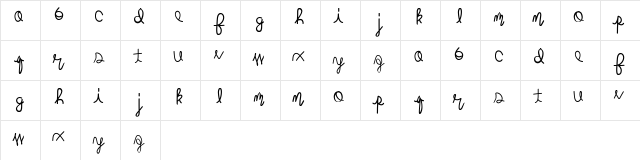
mightyroping Regular
Design Context for mightyroping Typeface
mightyroping is a composed and adaptable typeface that performs quietly and consistently across a wide range of design contexts.